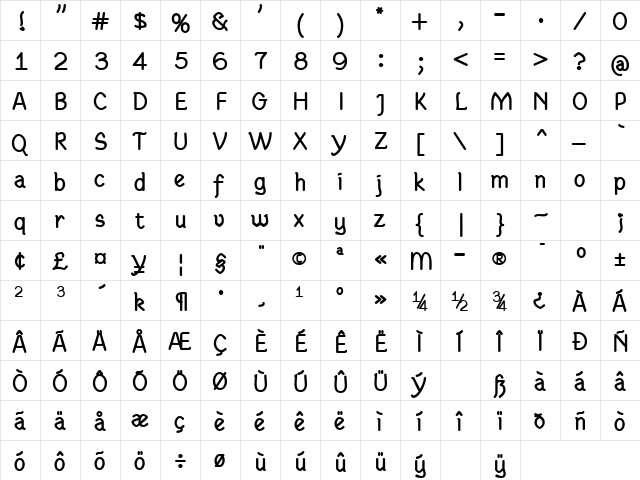
RundigPencil Bold
Design Context for RundigPencil Typeface
RundigPencil takes a measured approach to typography — its balanced proportions and neutral character make it a reliable workhorse for both digital and print work. Its bold stroke weight gives it real presence on the page.